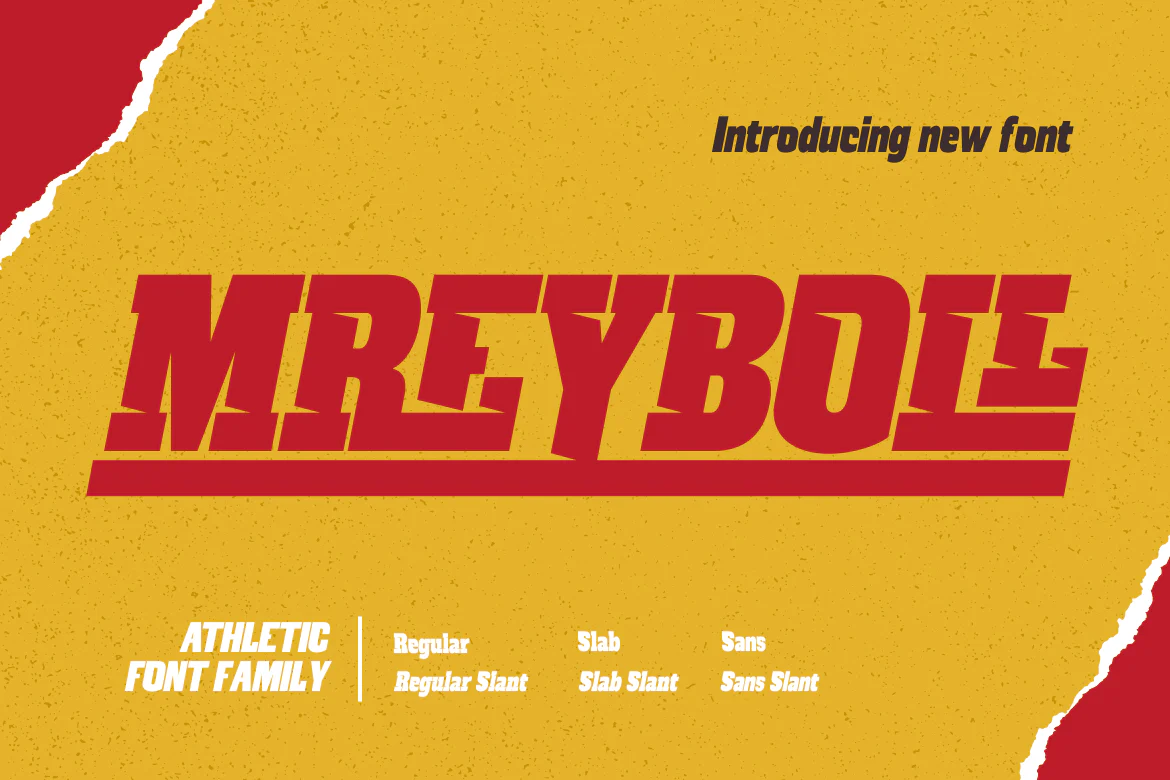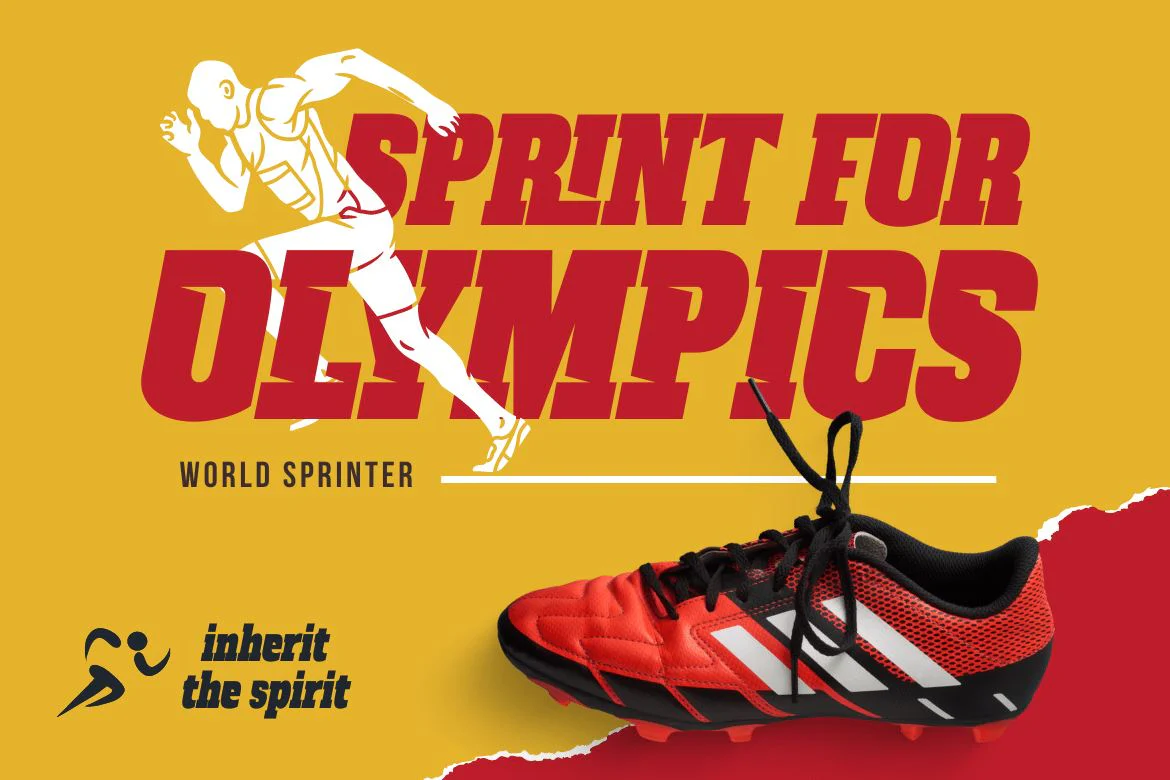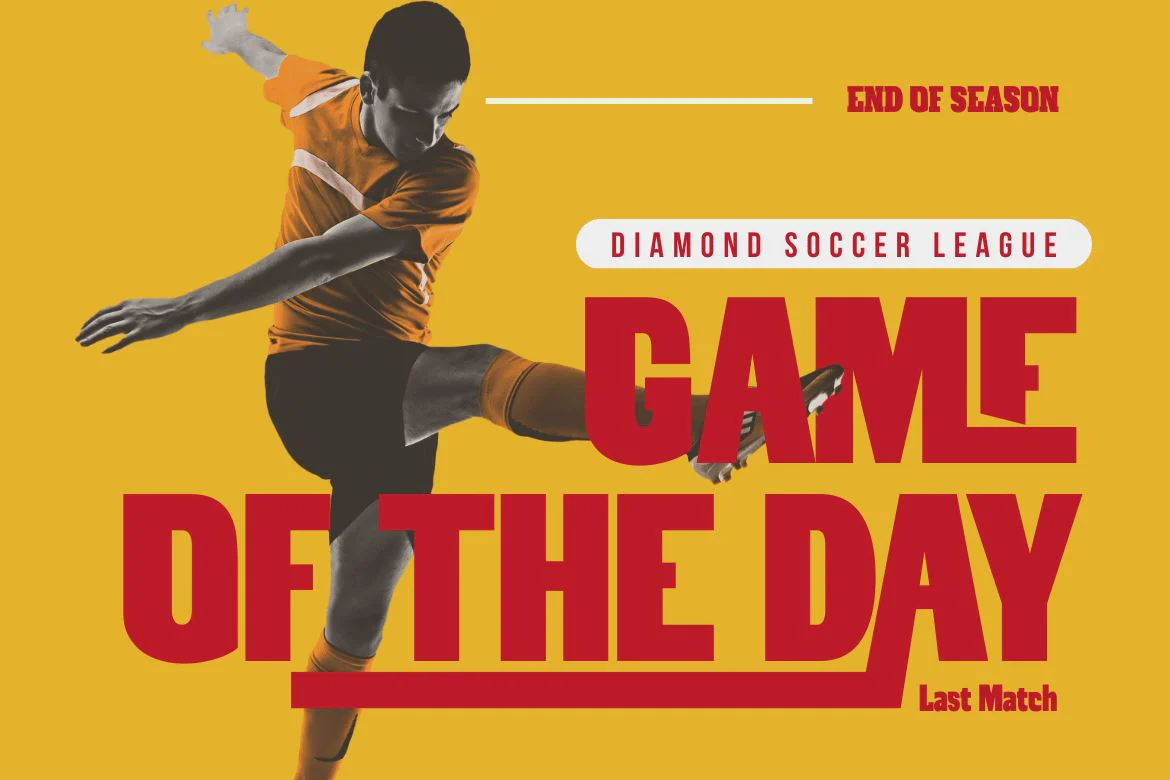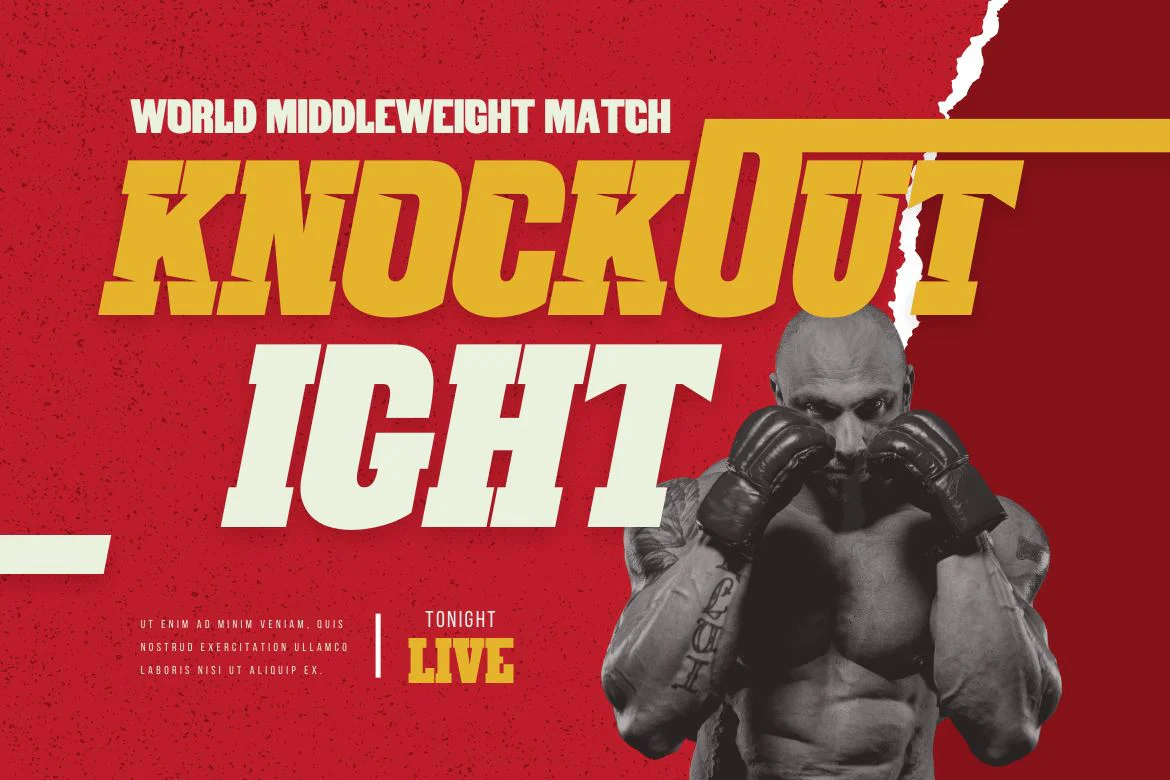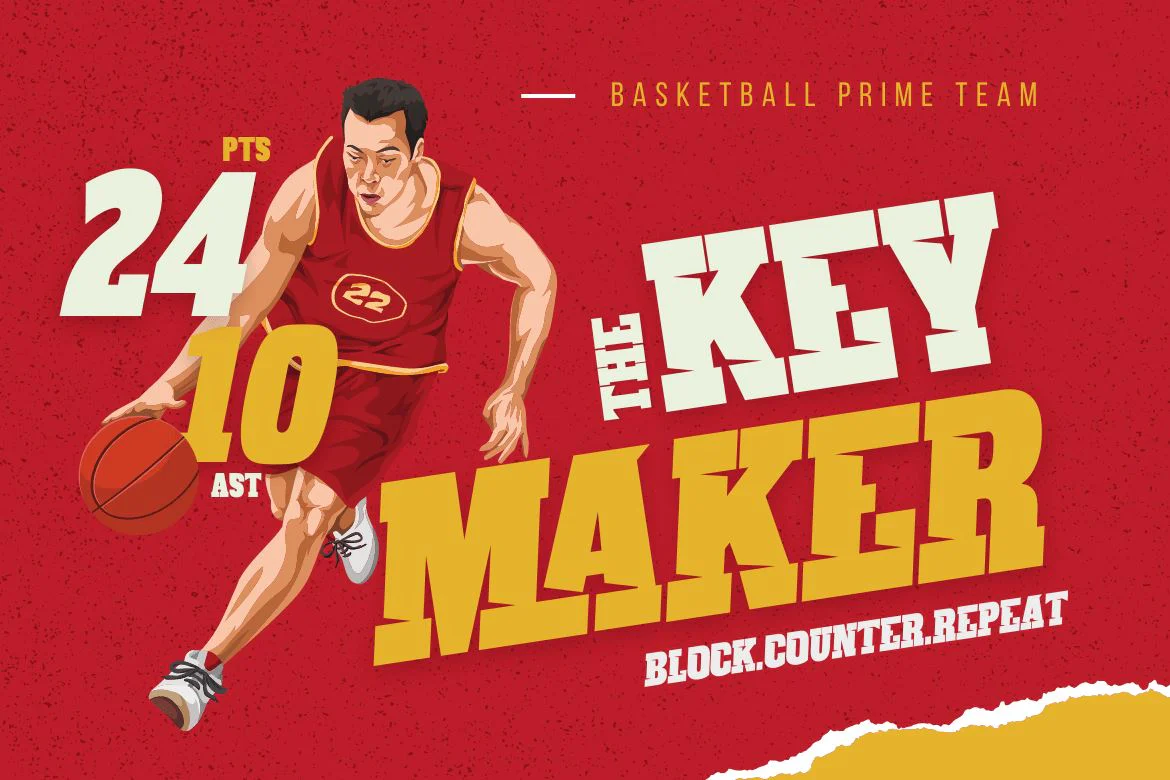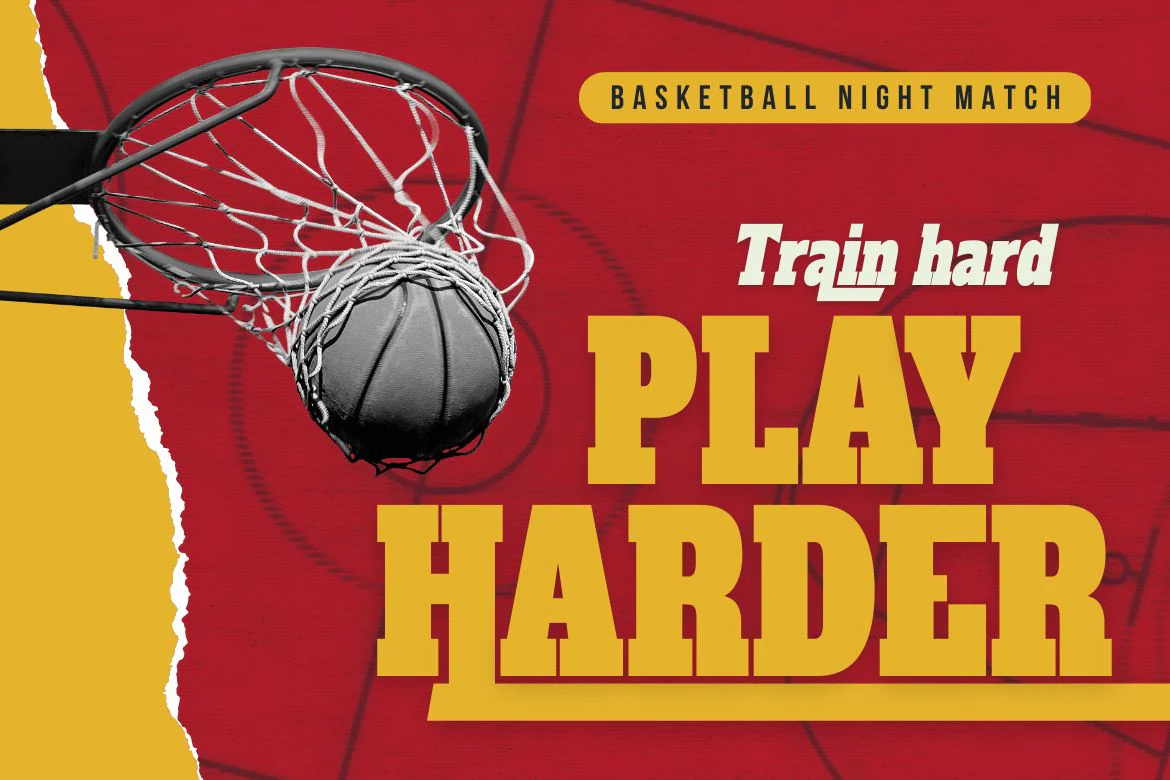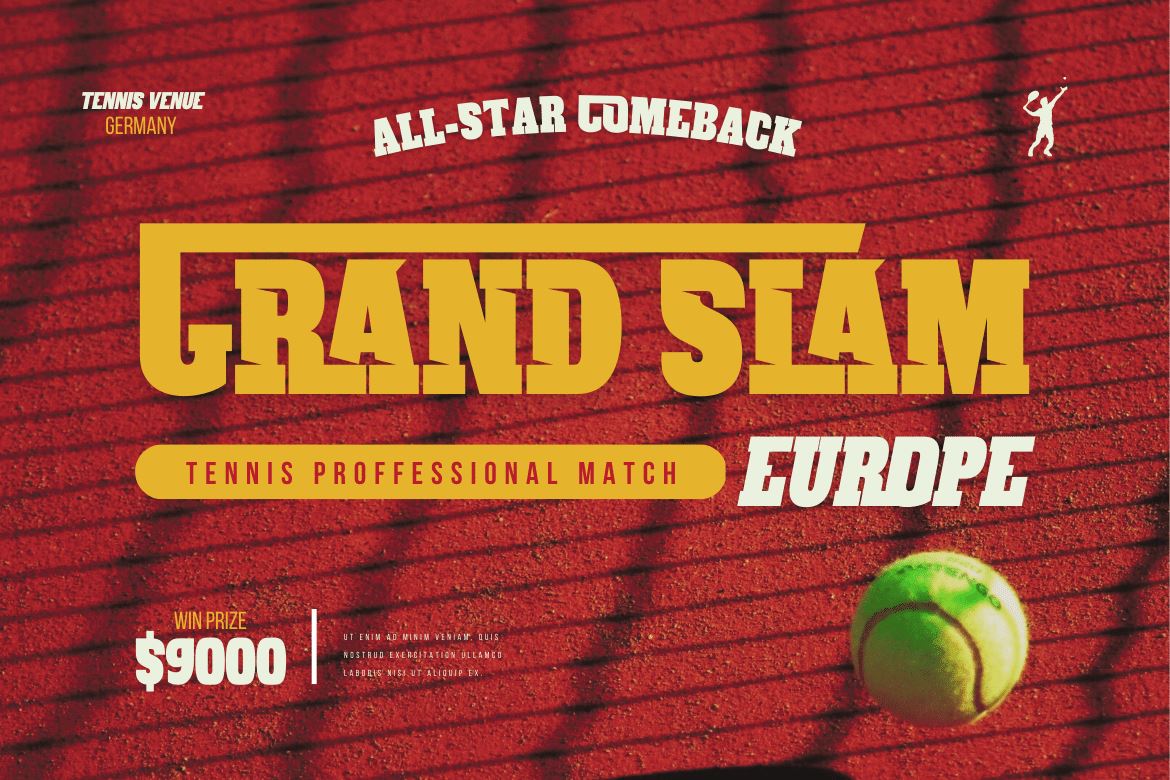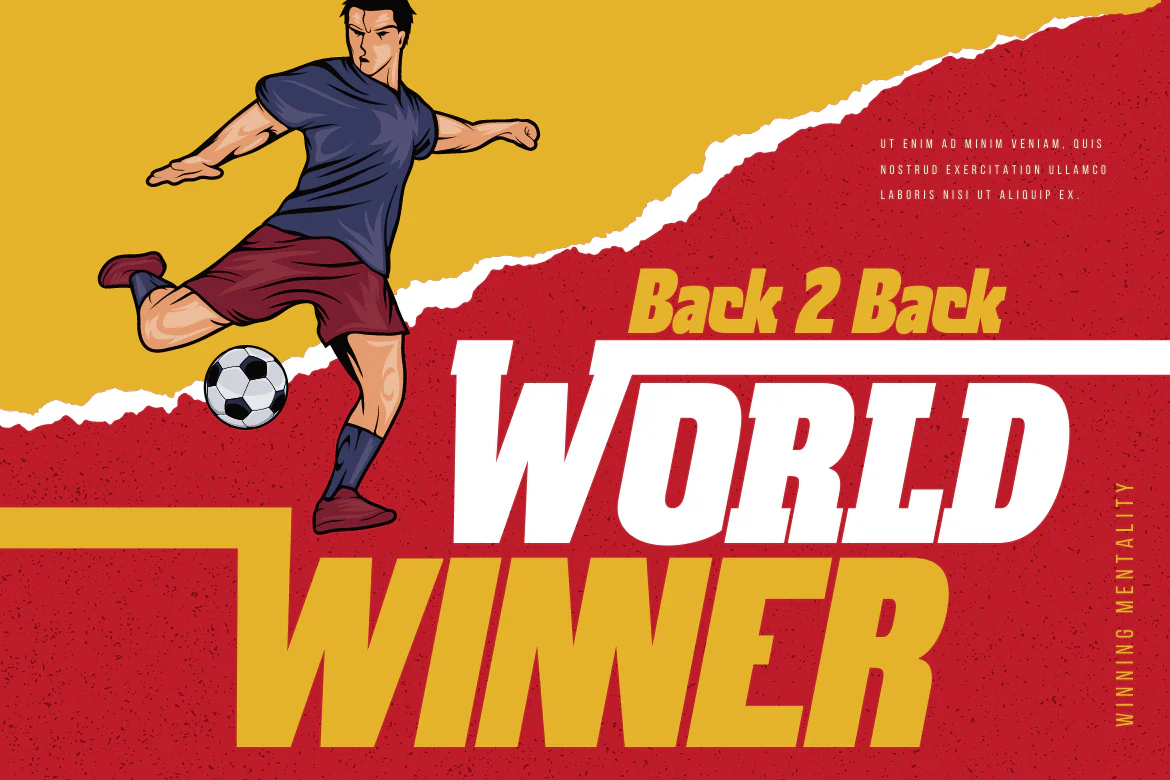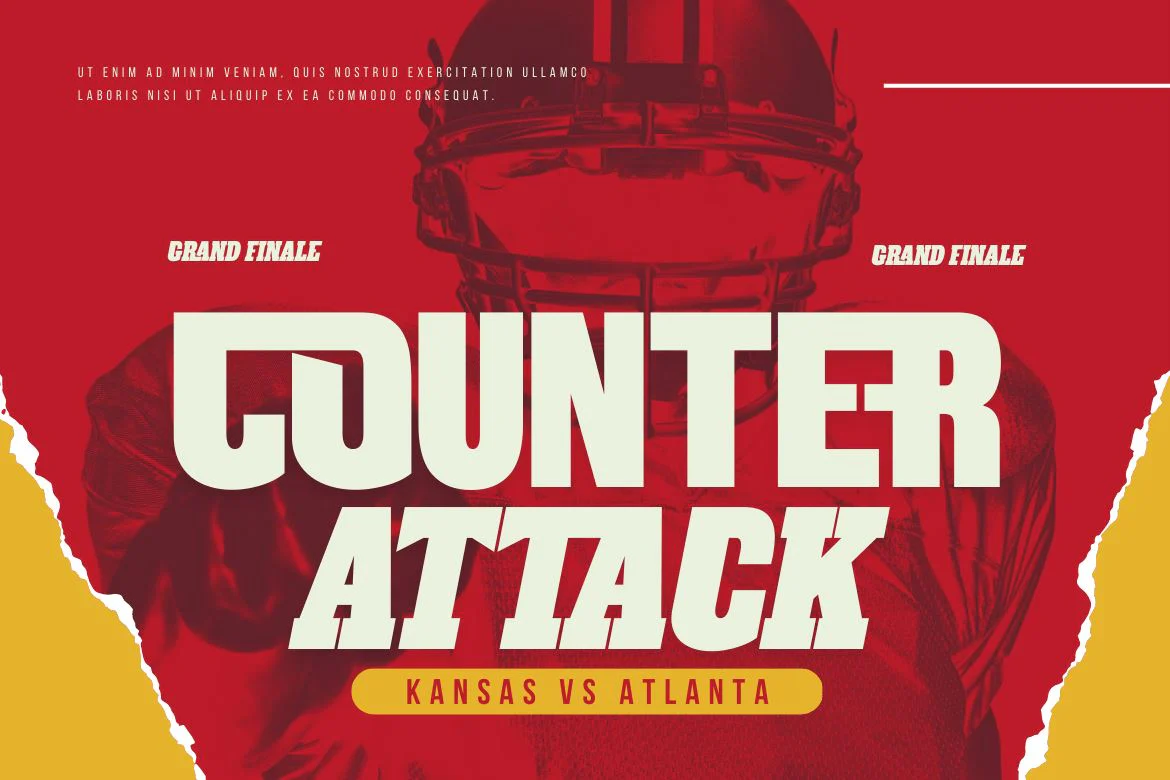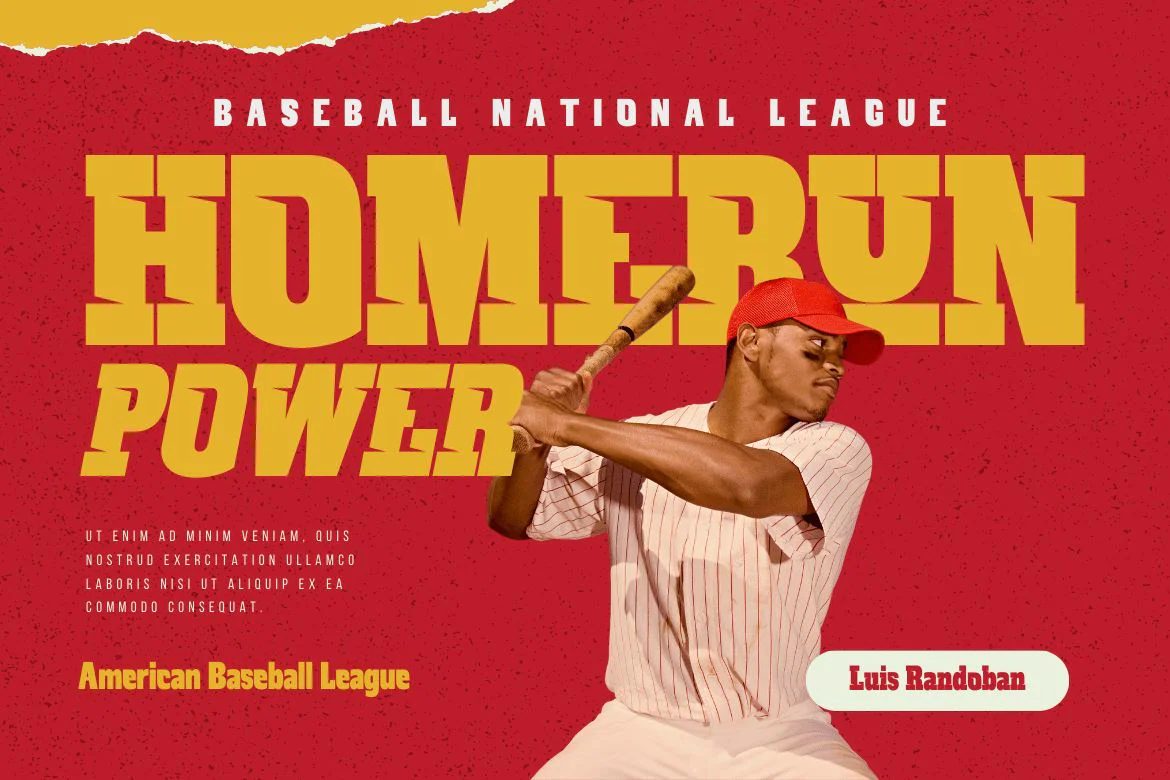
MREYBOLL | Athletic Font
The ideal display font for sporting goods is MREYBOLL. This amazing sports typeface is available in a range of styles, and the little contemporary cutouts that are highlighted at each corner give it a dynamic tilt. Perfect for games, titles, sports designs, logos, and car projects. This typeface can also be used for contemporary text or a monogram. Unlike other sports fonts, Mreyboll is superior and has a highly manly, crisp feel that gives it more force and speed effect. Check it out and purchase it soon for a distinctive design experience. It was created to be a strong, dynamic font with a little different font style.